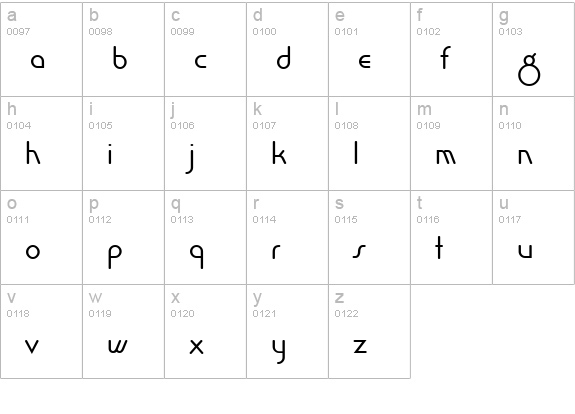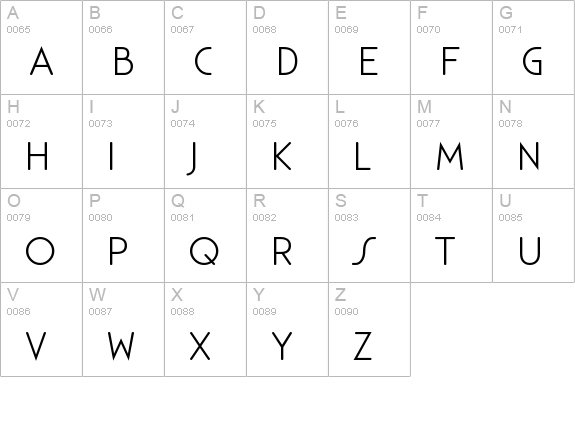
Salsa Mangos BTN Lt Font Details
Salsa Mangos BTN Lt font is a stunning display typeface that exudes a vibrant and playful energy. With its intricate yet legible letterforms, this font is perfect for adding a touch of elegance and character to your designs. This unique font offers a delightful combination of flowing curves and sharp edges, creating a harmonious balance that captures attention. Its clean and modern aesthetic makes it versatile and suitable for a wide range of projects, from branding and packaging to headlines and posters. Designed with precision and attention to detail, Salsa Mangos BTN Lt font stands out with its distinct personality. Whether you're looking to create a bold statement or infuse your design with a touch of sophistication, this font is sure to deliver exceptional results. One of the best parts about Salsa Mangos BTN Lt font is that it is available for free download at FontsMarket.com. This means that you can easily access and use this remarkable font for any personal or commercial project without breaking the bank. So, why wait? Take advantage of this incredible offer and elevate your designs with the captivating charm of Salsa Mangos BTN Lt font.